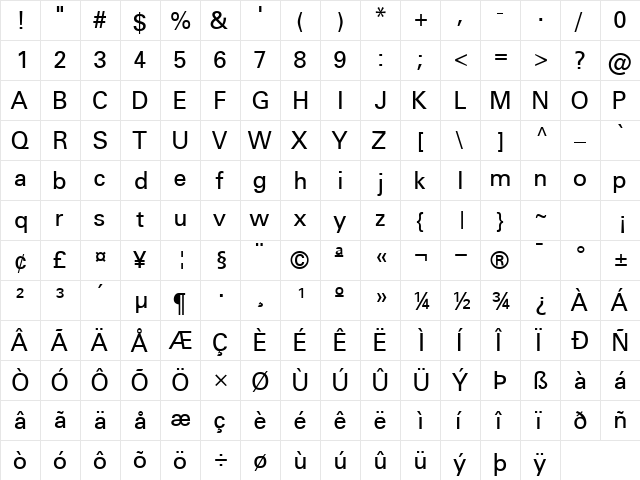
NovaMediumSSK Regular Font Preview
NovaMediumSSK Regular
NovaMediumSSK Regular Font Details
Design Context for NovaMediumSSK Typeface
NovaMediumSSK takes a measured approach to typography — its balanced proportions and neutral character make it a reliable workhorse for both digital and print work.